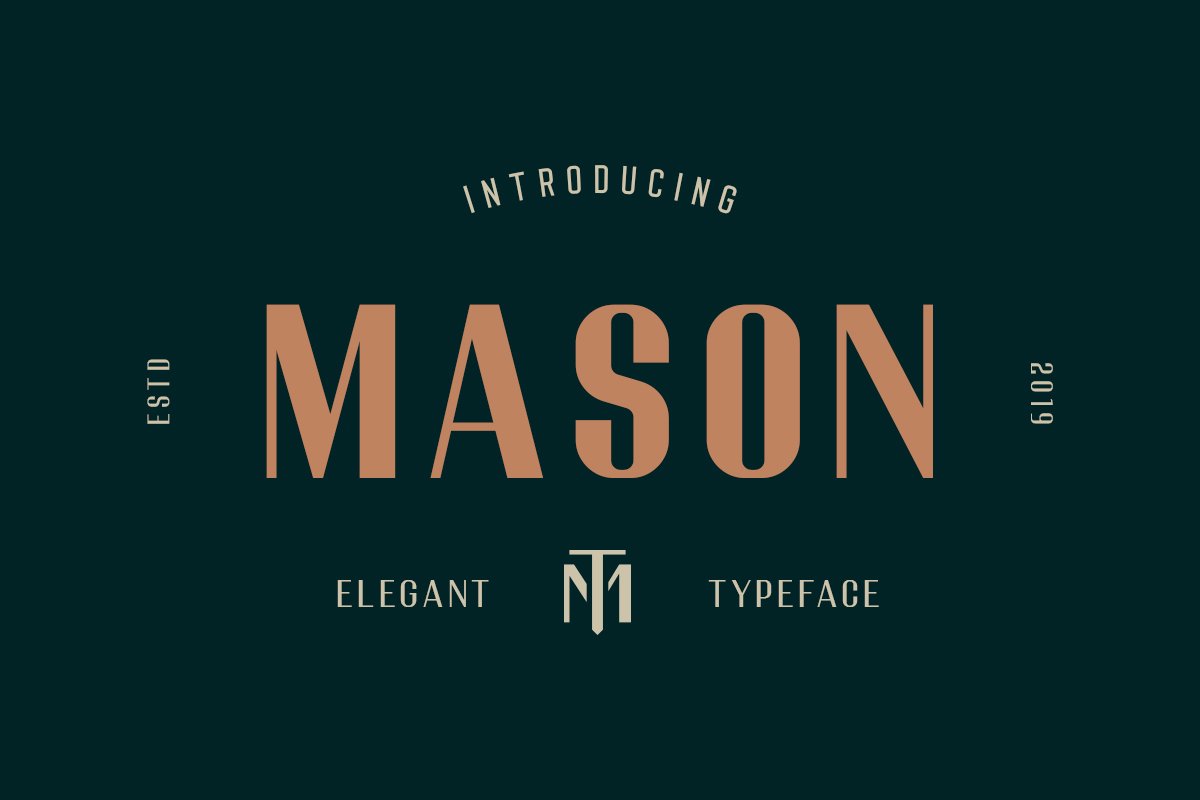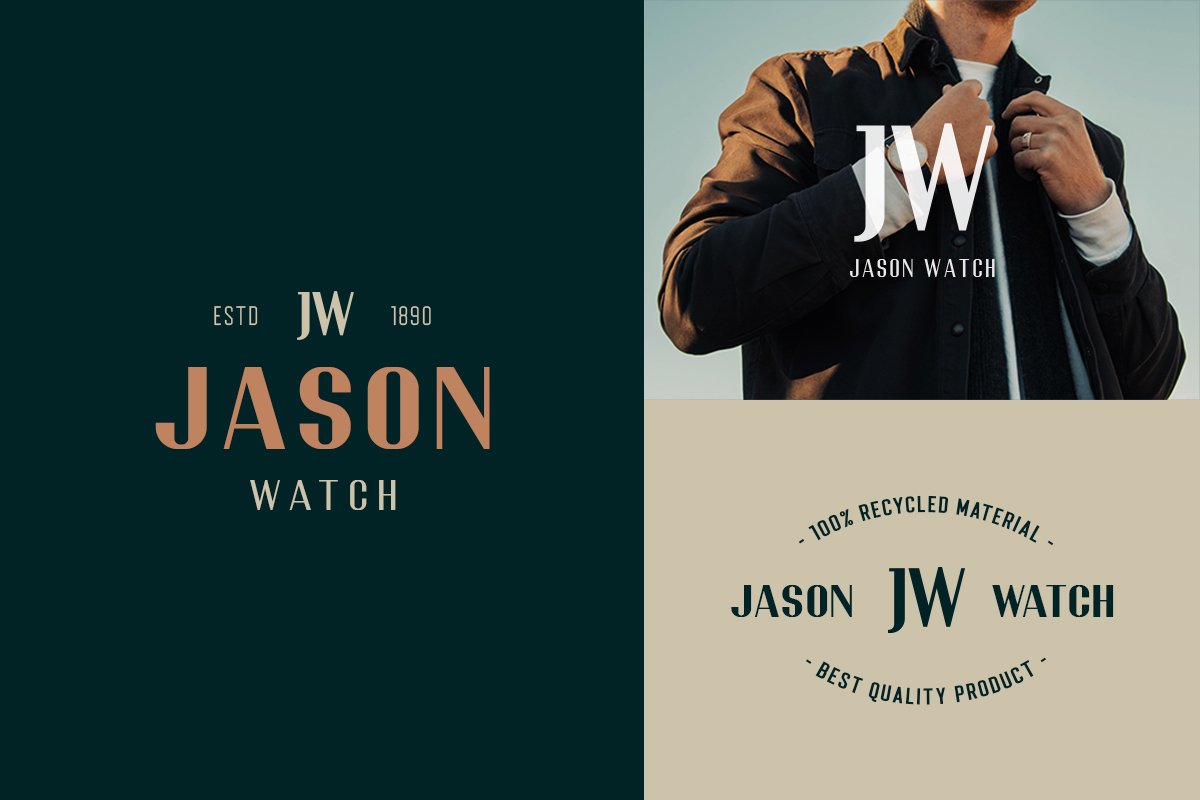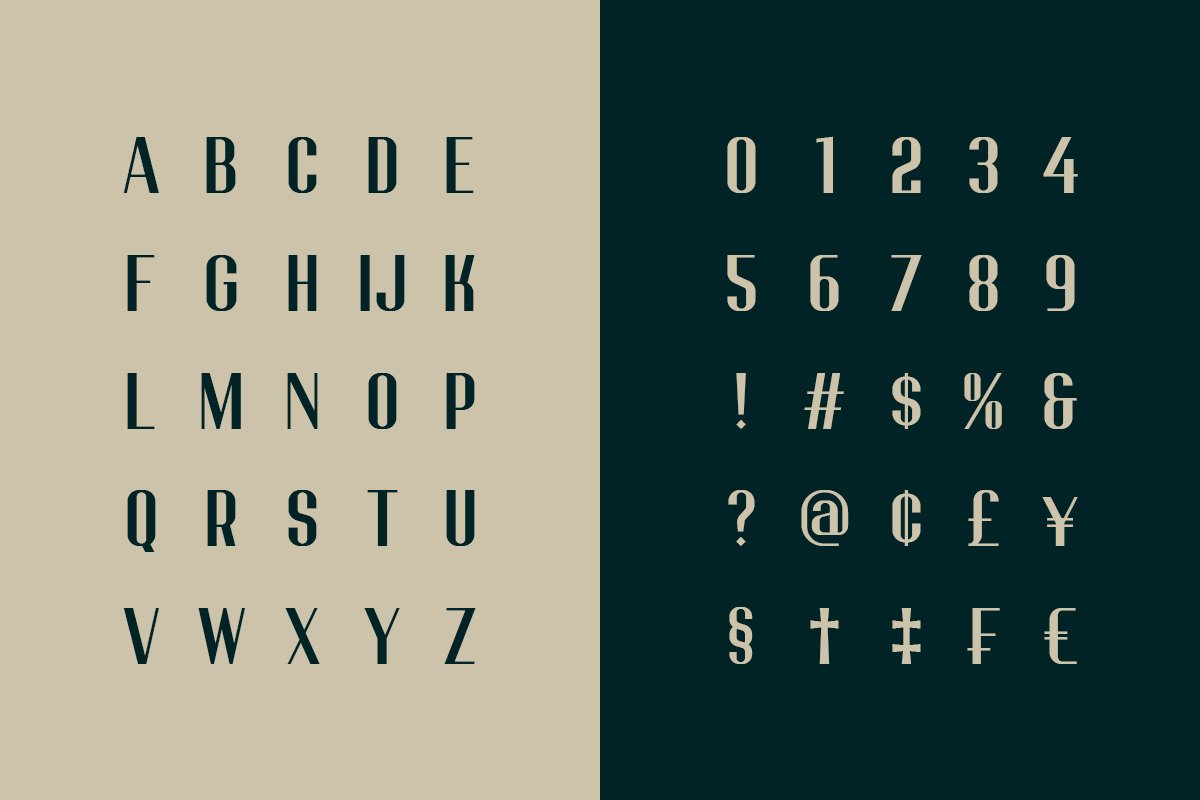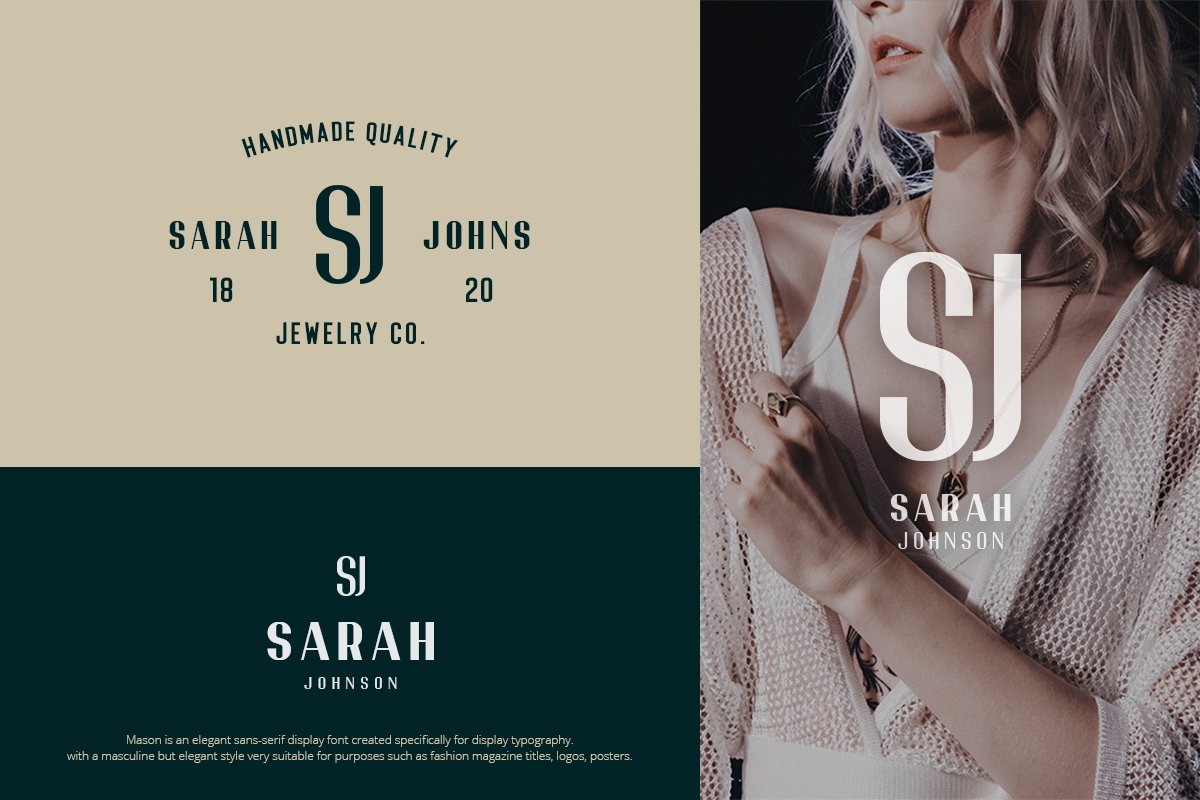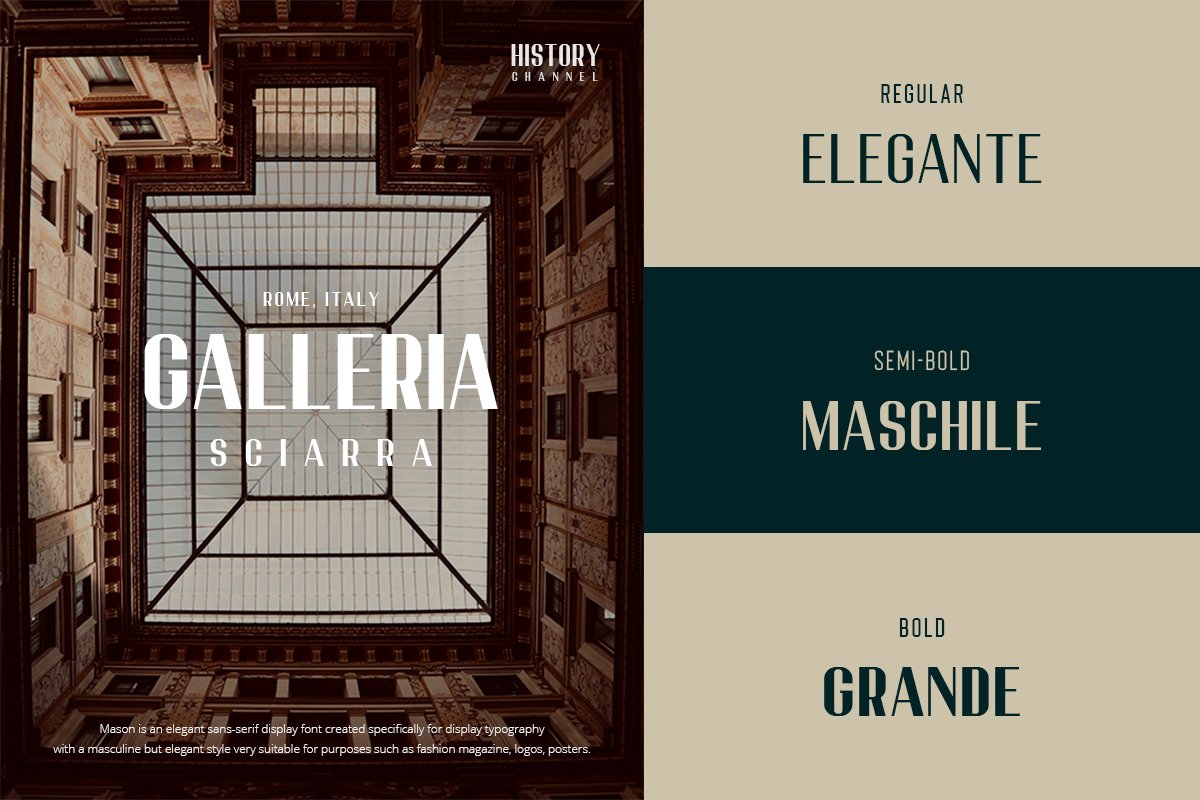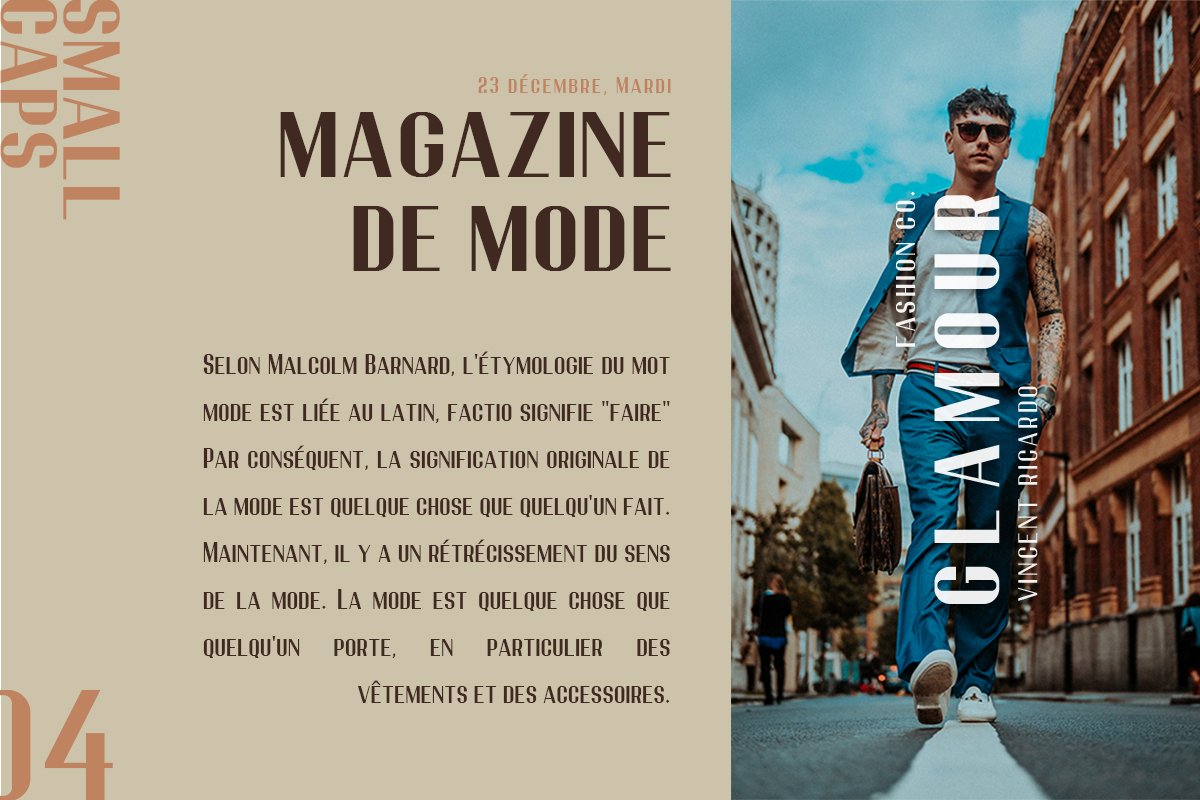
Free Mason Elegant Typeface Font is an elegant sans-serif display font. It is looking more perfectly for display typography. This font has multi-purposes use such as fashion magazine titles, logos, posters, websites, and more. It is available for two format files OTF and TTF that you can install on your devices as well. However, this free font is coming with a personal use license, but if you want to use it on commercial use you can get the premium version.